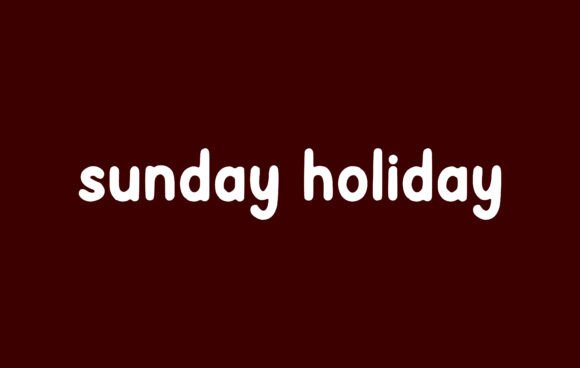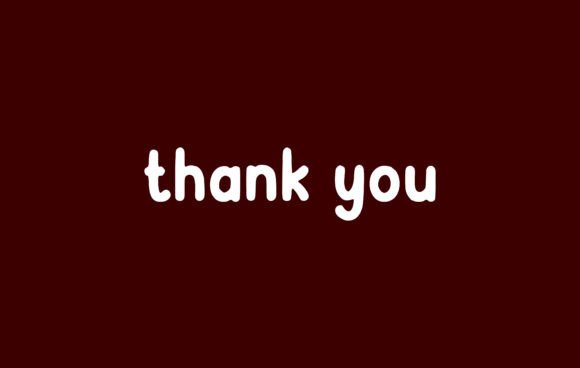
The Perfect Brush Stroke for Your Next Design
Have you ever been stuck in the middle of a creative project, staring at a blank page, waiting for that elusive spark to strike? You know, the moment when everything falls into place, and your vision starts to take shape? For designers, this is the sweet spot where imagination meets reality.
That’s exactly where Aileen Font comes in – a beautifully crafted, authentic handwritten font that adds a touch of romance to any design. Whether you’re working on a magazine headline, social media post, or wedding invitation, this font has the potential to elevate your creative ideas to new heights.
For designers, Aileen Font is a valuable asset, offering legibility and a unique, personal touch that sets it apart from other fonts. With its versatility and charm, it’s no wonder why Aileen Font has become a favorite among creatives.
Aileen Font Key Features
- Font Family: Aileen
- Font Styles: Regular, Italic, Bold, Bold Italic
- Unique Characteristics: Aileen font features a unique blend of modern and vintage elements, with clean lines and elegant curves, making it suitable for a wide range of applications, including logos, headlines, and body text.
Aileen Font Review
Overall, I have mixed feelings about the Aileen Font. While it has its strengths, it also has some limitations that make it less versatile than other fonts.
- Highly legible: The Aileen Font is designed to be easy to read, making it perfect for body text and long blocks of content.
- Unique charm: The font’s quirky, hand-drawn feel adds a touch of personality to any design.
- Wide language support: The font includes a wide range of languages, making it a great choice for multilingual projects.
- Limited scalability: The font may not hold up well at very small or very large sizes, which can be a problem for certain designs.
- No bold or italic variants: The font only comes in regular weight, which can make it less versatile for use in headings or emphasis.
Overall, I think the Aileen Font is a solid choice for certain projects, but it’s not a go-to font for me. It’s best suited for designs that require a high level of legibility and a unique, hand-drawn feel. With a bit more attention to scalability and additional weight variants, I think the Aileen Font could be a real standout.
Tips: Use Aileen Font for headings or titles to add a touch of elegance to your design. Experiment with different font sizes and colors to create visual hierarchy.
Tips: Use Aileen Font for logos, headings, or body text to add a touch of sophistication to your design. Experiment with different font sizes and colors to create visual interest.
Tips: Use Aileen Font for headings, titles, or body text to add a touch of elegance to your presentation or document. Experiment with different font sizes and colors to create visual hierarchy.
Aileen Font is suitable for:
- Business cards and branding materials
- Magazine and newspaper articles
- Book covers and interior design
Tips: Use Aileen Font to create a cohesive and sophisticated brand identity. Experiment with different font combinations and
Comparison to Aileen Font: Lato has a more neutral and minimalist design compared to Aileen Font’s elegant and sophisticated feel. Lato is also more versatile and can be used in a wider range of design projects.
Montserrrat Font is a sans-serif typeface designed by Julieta Ulanovsky. It’s ideal for urban and modern designs, and its bold and geometric features make it perfect for headings and titles. Montserrat is a great alternative to Aileen Font for designs that require a strong and edgy feel.
Comparison to Aileen Font: Montserrat has a more urban and industrial design compared to Aileen Font’s elegant and refined feel. Montserrat is also more suitable for bold and eye-catching designs, while Aileen Font is more suitable for sophisticated and luxurious designs.
Open Sans Font is a sans-serif typeface designed by Steve Matteson. It’s a highly legible and versatile font that’s suitable for various design projects, from digital to print media. Open Sans is a great alternative to Aileen Font for designs that require a clean and modern feel.
Yes, Aileen Font is designed to be versatile and can be used for both print and digital applications. The font’s crisp, clean lines and high-resolution glyphs ensure that it looks great in various formats, from business cards to digital interfaces.